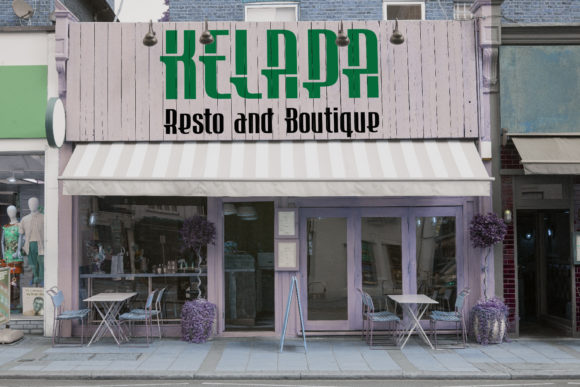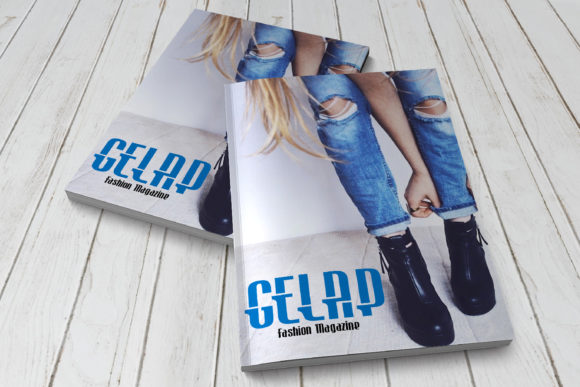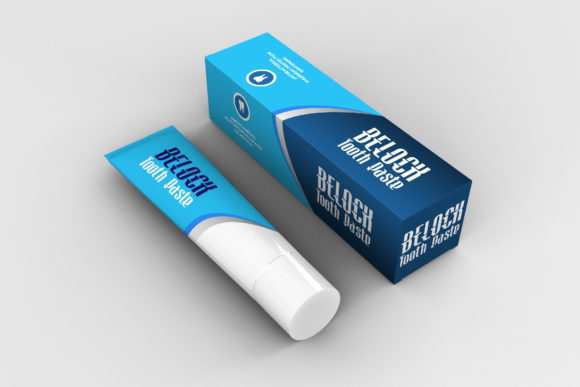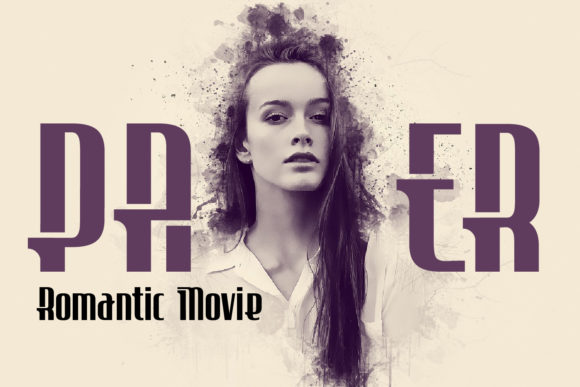
Introducing Amel Font: The Cute and Fresh Display Font You Need
Are you tired of using the same old fonts in your designs? Do you want to add a touch of freshness and playfulness to your projects? Look no further than Amel Font, a delightful display font that’s perfect for making a statement. In this article, we’ll dive into the world of Amel Font and explore its features, benefits, and uses.
What is Amel Font?
Amel Font is a modern display font that’s designed to bring a smile to your face. With its cute and fresh aesthetic, it’s ideal for use in a variety of contexts, from busy backgrounds to standalone headlines. This font is perfect for designers and crafters who want to add a personal touch to their work and make it stand out from the crowd.
Key Features of Amel Font
- Cute and Fresh Design: Amel Font boasts a playful and modern design that’s sure to capture attention.
- Versatile: This font is perfect for use in a range of contexts, from digital designs to print materials.
- Easily Readable: Despite its playful design, Amel Font is easy to read, making it perfect for use in headlines and titles.
- High-Quality: Amel Font is a high-quality font that’s designed to deliver exceptional results.
Benefits of Using Amel Font
So, why should you choose Amel Font for your next project? Here are just a few benefits of using this amazing font:
- Adds Personality to Your Designs: Amel Font is a great way to add a personal touch to your designs and make them stand out.
- Perfect for Creative Projects: This font is ideal for use in creative projects, such as branding, packaging, and advertising.
- Supports Multiple Languages: This font supports multiple languages, making it a great choice for international projects.
Use Cases for Amel Font
So, how can you use Amel Font in your designs? Here are a few ideas to get you started:
- Headlines and Titles: Use Amel Font to create eye-catching headlines and titles that grab attention.
- Branding and Logo Design: This font is perfect for use in branding and logo design, adding a touch of personality to your brand.
- Social Media Graphics: Amel Font is a great choice for social media graphics, such as Facebook posts and Instagram stories.
- Packaging Design: Use this font to add a personal touch to your packaging design and make your products stand out.
Tips for Using Amel Font
Here are a few tips for getting the most out of Amel Font:
- Use it Sparingly: Amel Font is a bold font, so use it sparingly to avoid overwhelming your design.
- Experiment with Colors: Try out different colors and combinations to find the perfect look for your design.
- Pair it with Other Fonts: Amel Font pairs well with other fonts, so don’t be afraid to experiment with different combinations.
In conclusion, Amel Font is a cute and fresh display font that’s perfect for designers and crafters who want to add a personal touch to their work. With its versatile design, ease of use, and high-quality output, this font is sure to become a favorite in your collection. So why wait? Download Amel Font today and start creating stunning designs that stand out from the crowd!